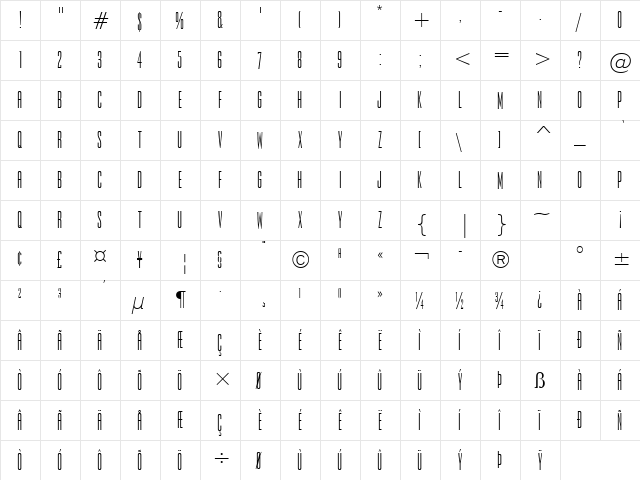
Expel Normal Font Preview
Expel Normal
Expel Normal Font Details
Design Context for Expel Typeface
Expel takes a measured approach to typography — its balanced proportions and neutral character make it a reliable workhorse for both digital and print work.